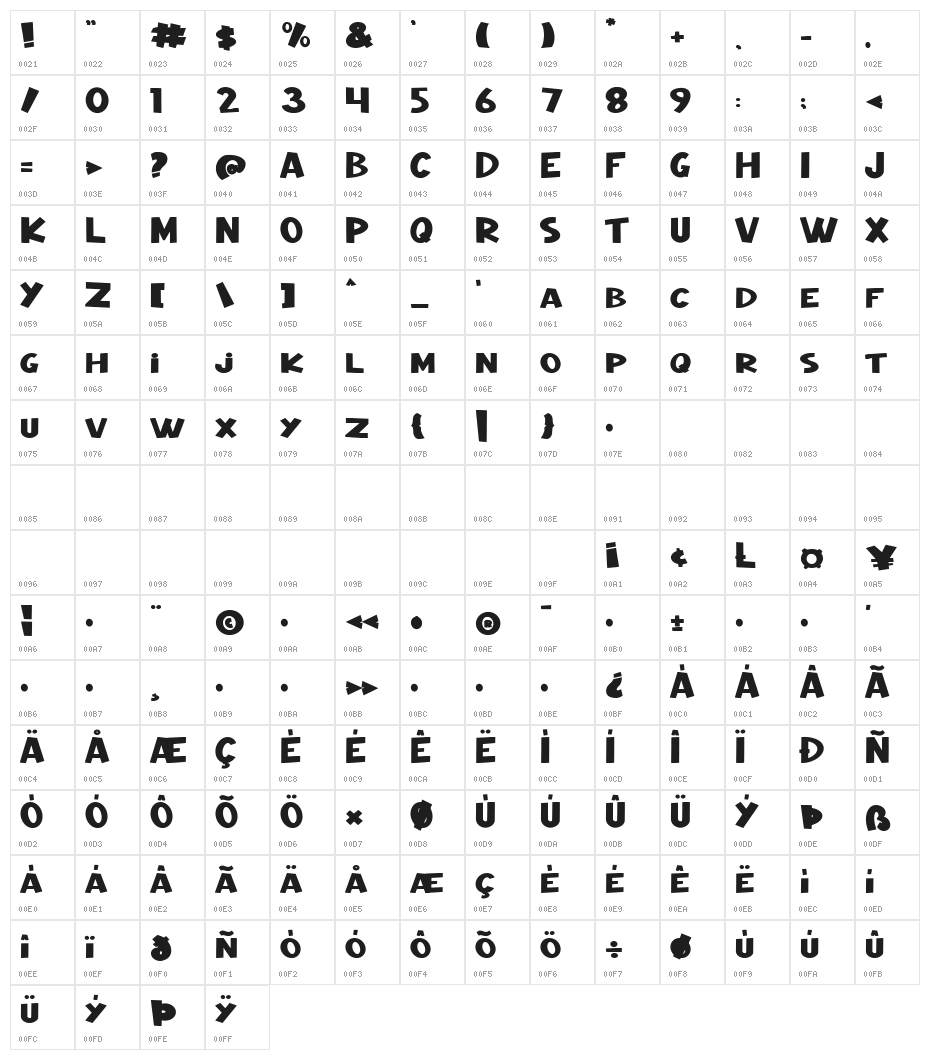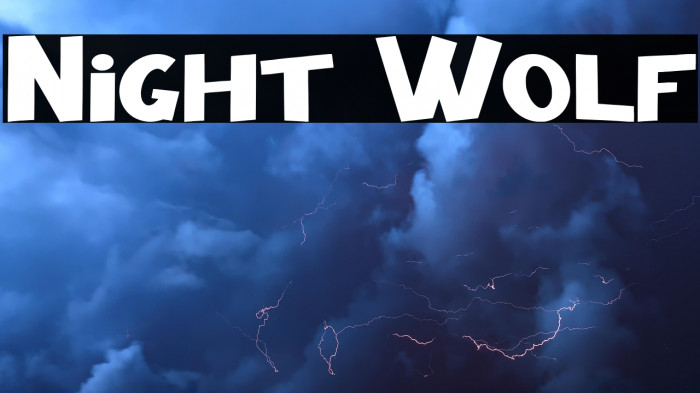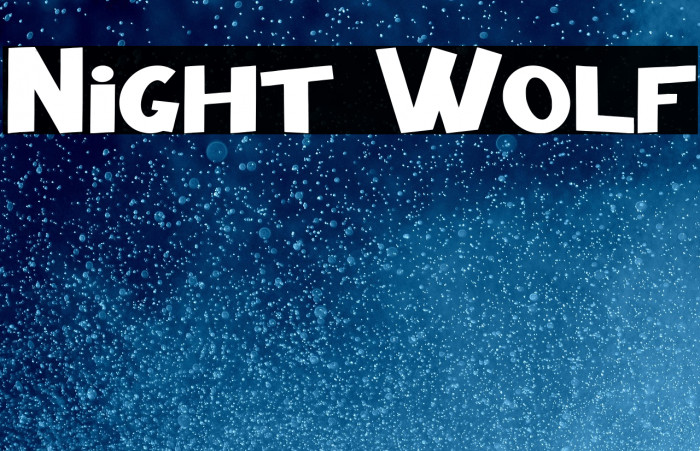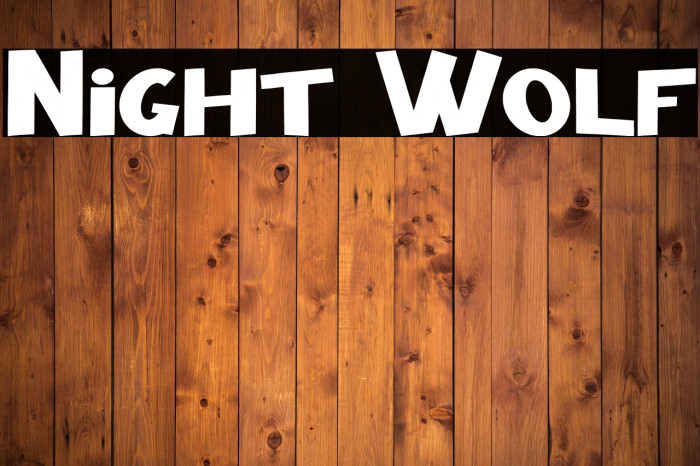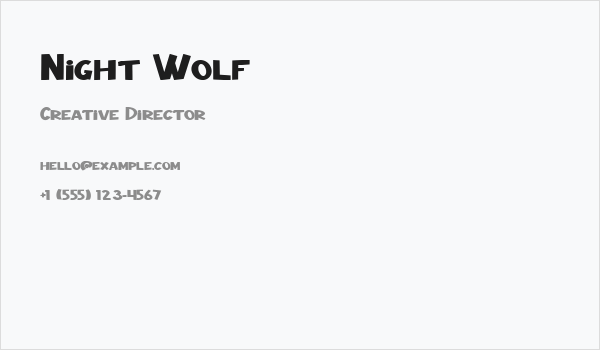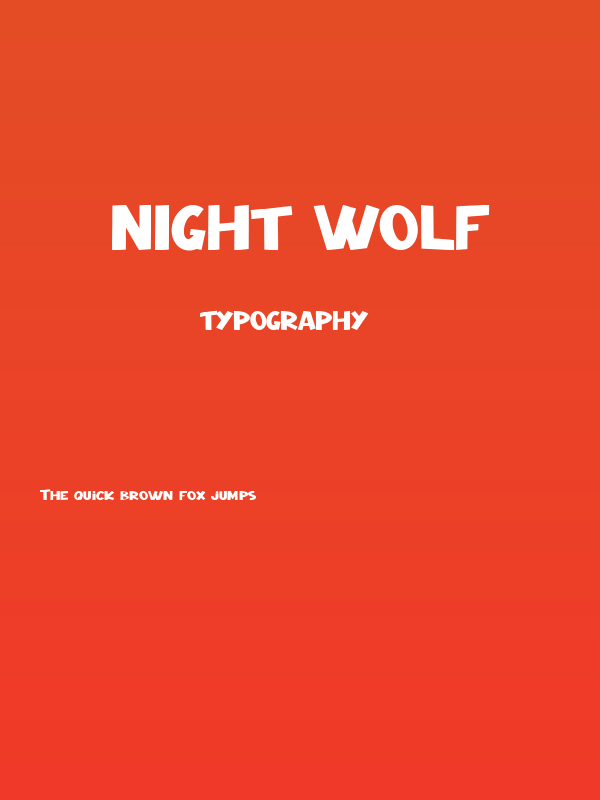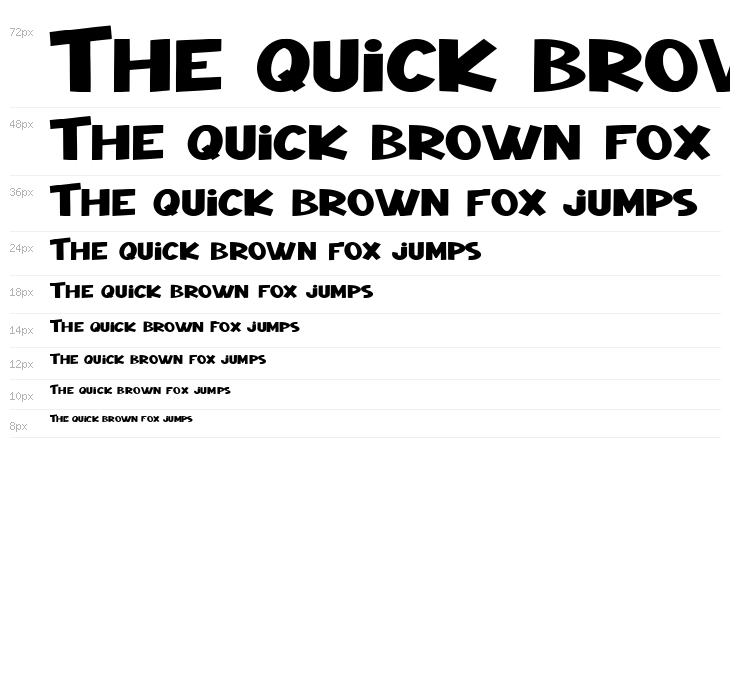
Night Wolf Font
Night Wolf Description
This font features bold, playful characters with a cartoonish flair. The letters are slightly irregular, giving them a dynamic and lively appearance. The strokes are thick and consistent, contributing to a strong visual impact. The overall design is informal and fun, making it suitable for creative and entertaining contexts. The font includes a full set of uppercase and lowercase letters, numbers, and a variety of special characters, all maintaining the same whimsical style.
| Overall Style | Playful, Cartoonish |
| Proposed Projects | Ideal for children's books, comic strips, playful branding, and event posters. |